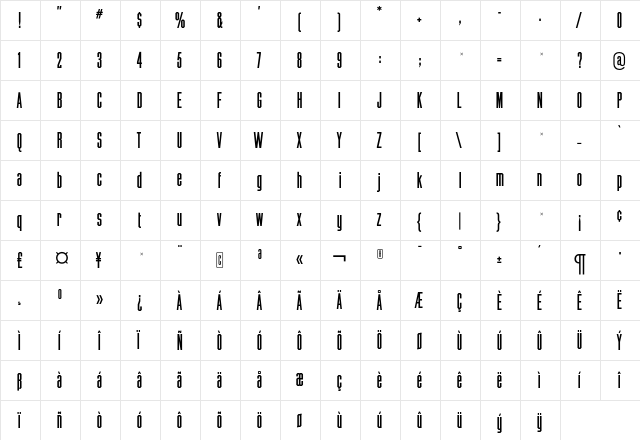
ChamferGothicRR Regular
Design Context for ChamferGothicRR Typeface
ChamferGothicRR takes a clean, functional approach — its unadorned letterforms prioritise legibility and work reliably across screen and print environments.
Font Pairing: Works well alongside a characterful serif or display font that can carry the expressive load while ChamferGothicRR handles the functional copy.
Pro Tip: Use ChamferGothicRR for UI labels, navigation, and short-form body copy where clean legibility is the priority.